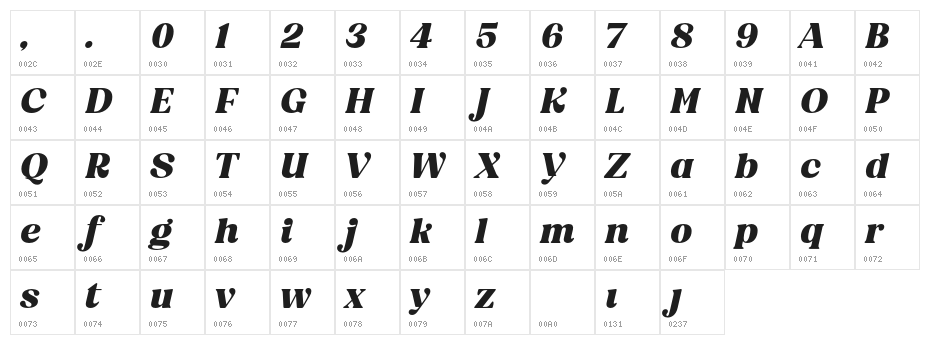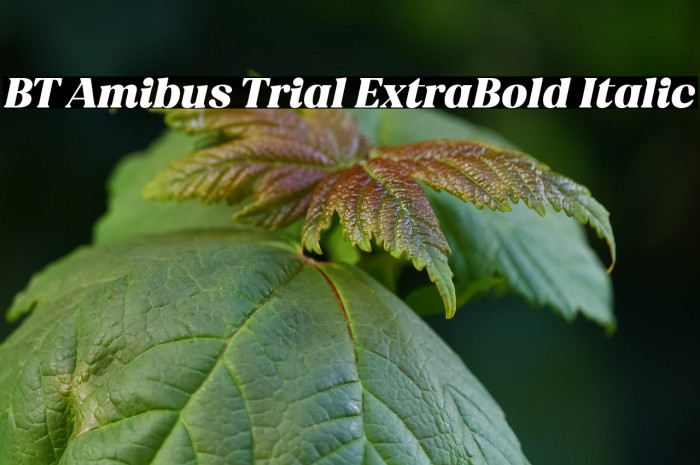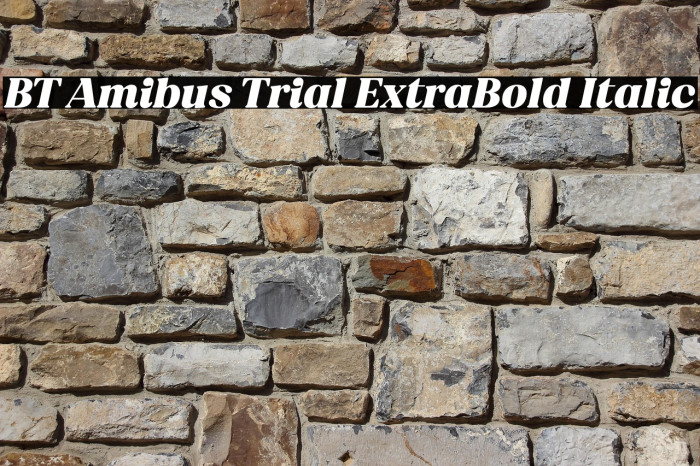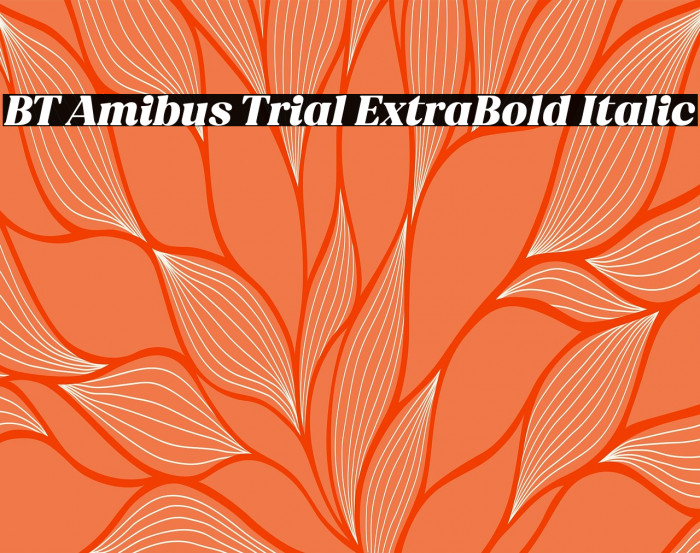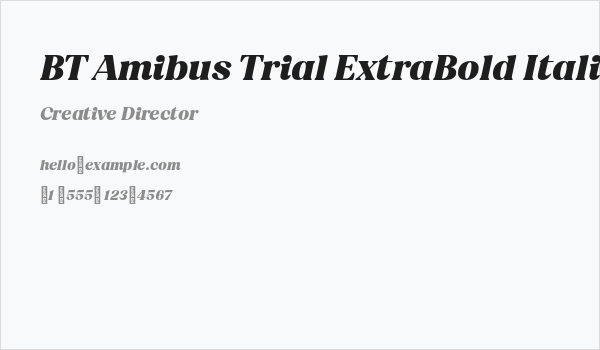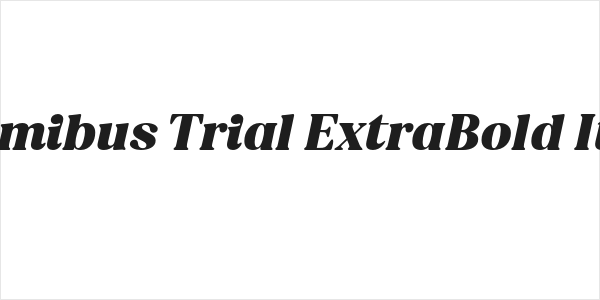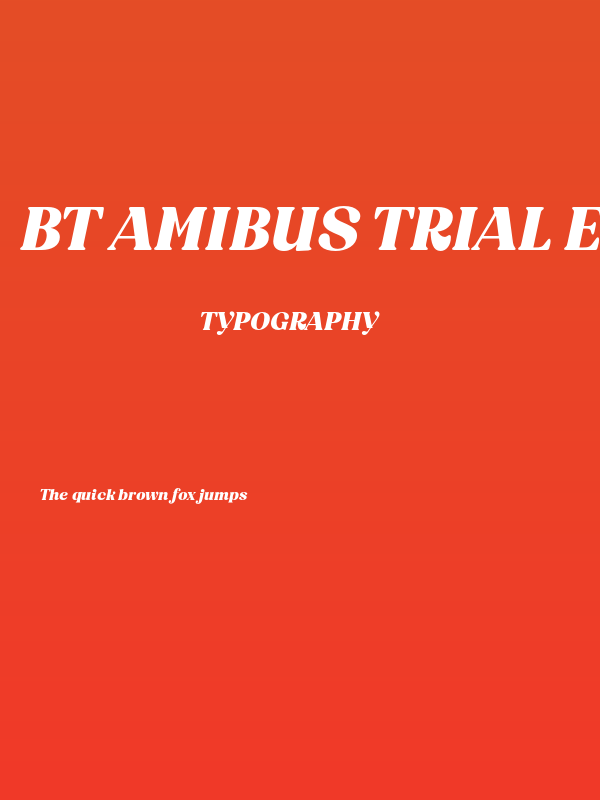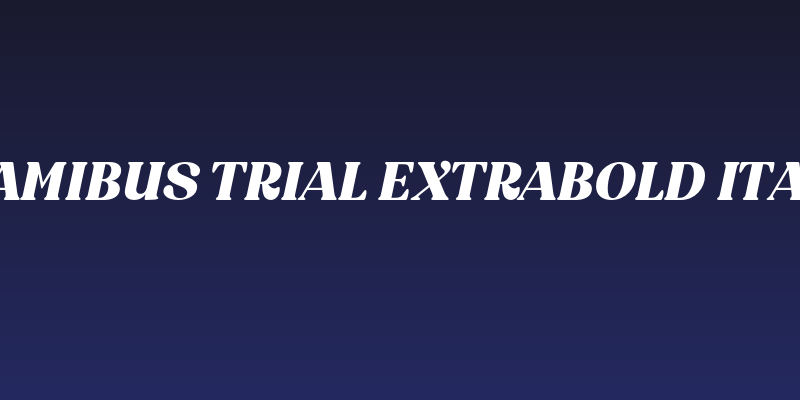
BT Amibus Trial ExtraBold Italic Font
BT Amibus Trial ExtraBold Italic Description
This typeface exudes a bold and dynamic presence with its extra-bold weight and italic style. The characters are designed with a strong emphasis on thick strokes, creating a powerful visual impact. The italic slant adds a sense of movement and elegance, making it suitable for attention-grabbing headlines and titles. The uppercase letters are robust and commanding, while the lowercase letters maintain a consistent flow. The numerals are clear and bold, ensuring readability. The absence of certain special characters suggests a focus on alphanumeric content.
| Proposed Projects | Ideal for headlines, branding, posters, and any project requiring a strong, impactful typeface. |